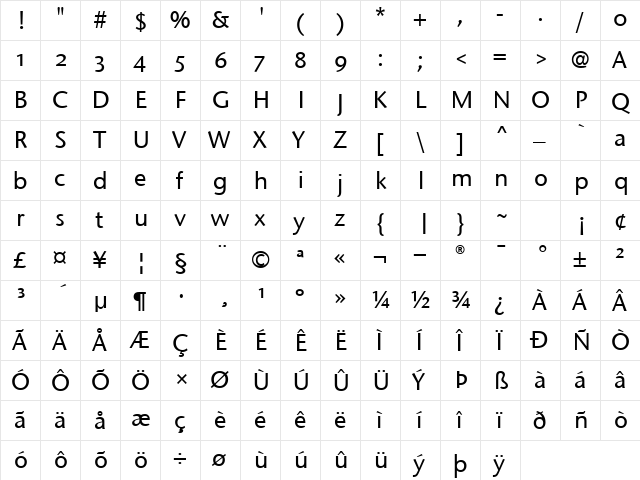
Stone Sans OS ITC TT Medium Font Preview
Stone Sans OS ITC TT Medium
Design Context for Stone Sans OS ITC TT Typeface
Stone Sans OS ITC TT is a composed and adaptable typeface that performs quietly and consistently across a wide range of design contexts.